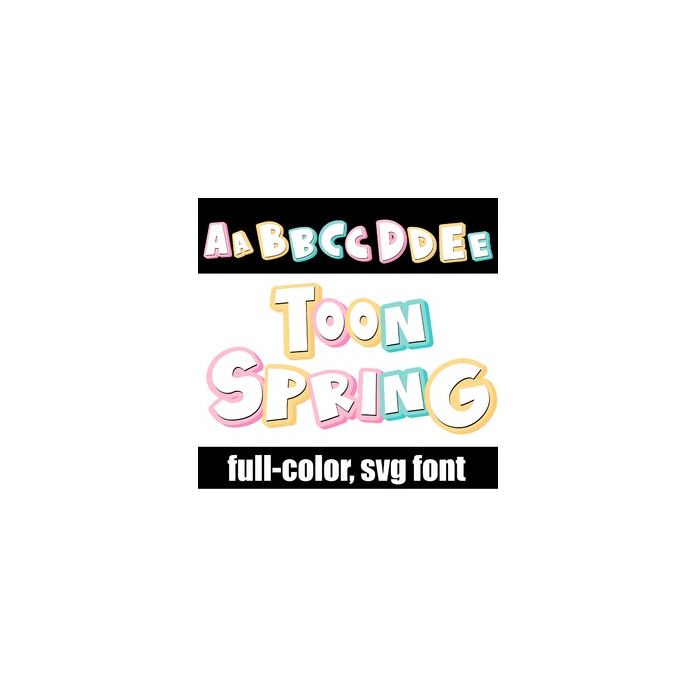
This full-color font features cartoon like lettering in spring colors. There is an alt version you can access through your system's character map that contains additional colors of all the letters.